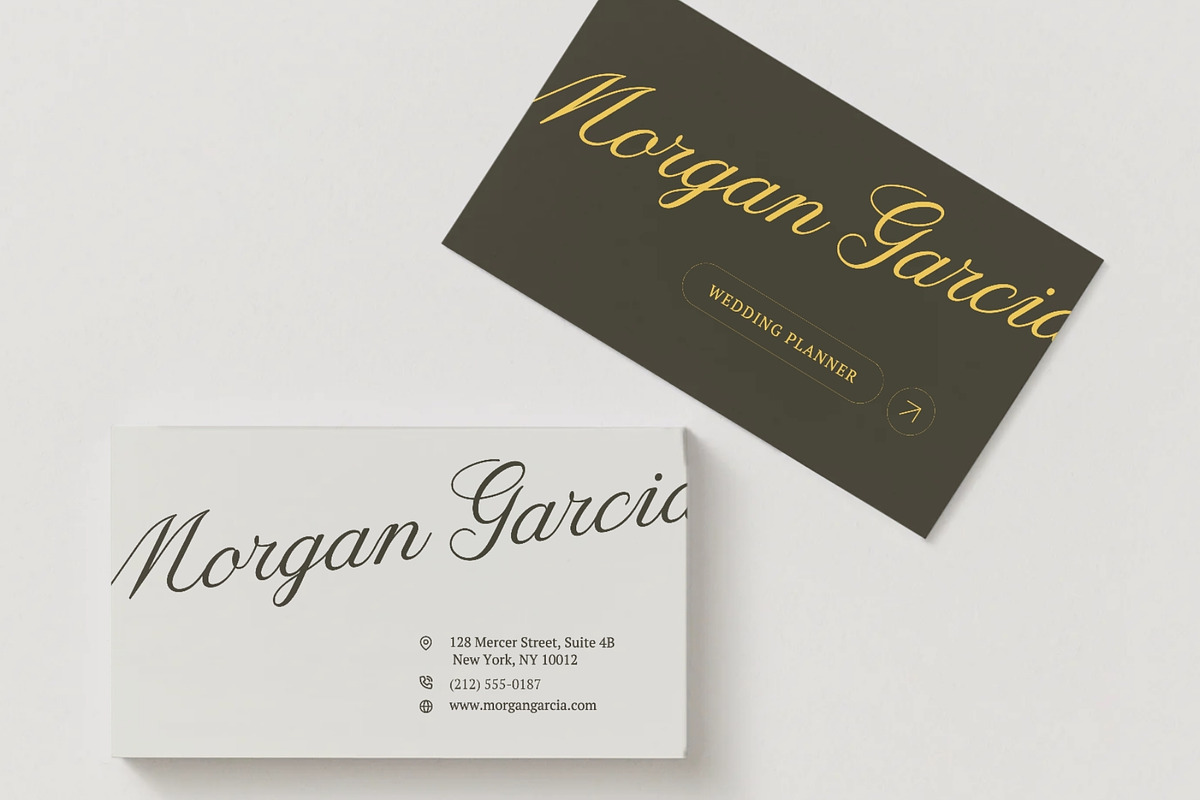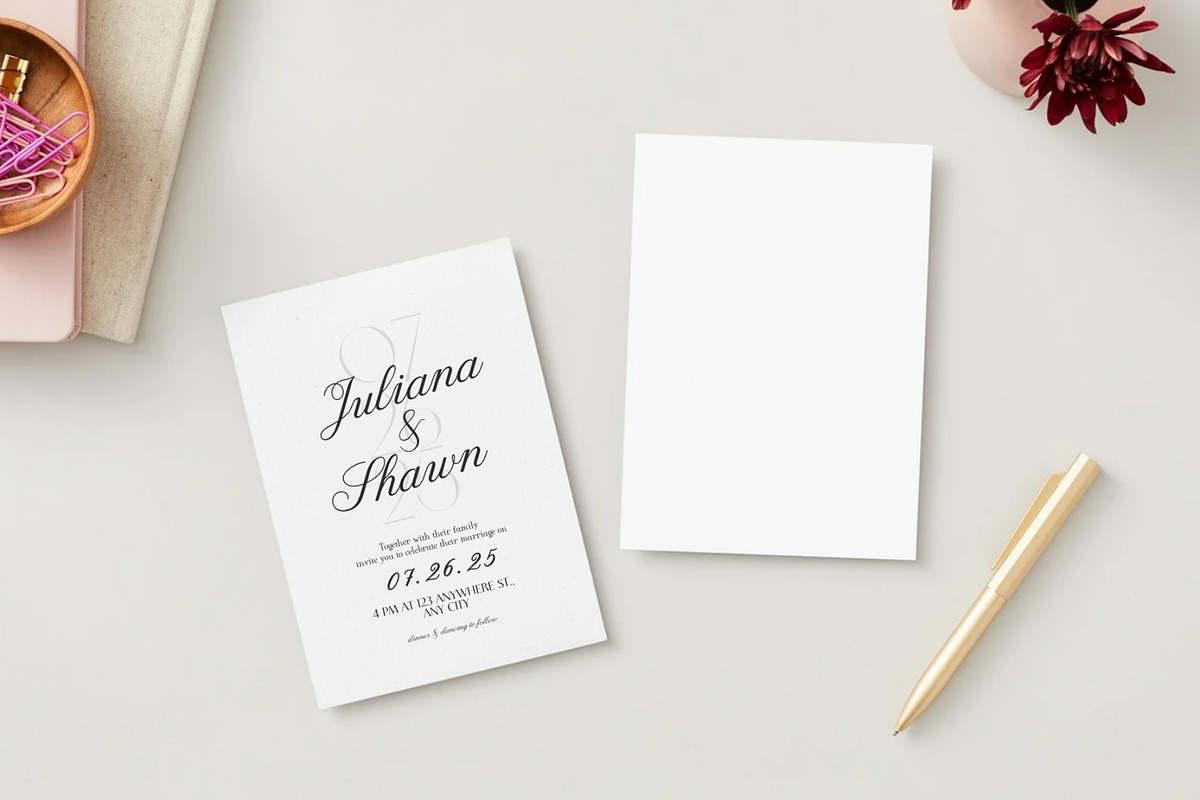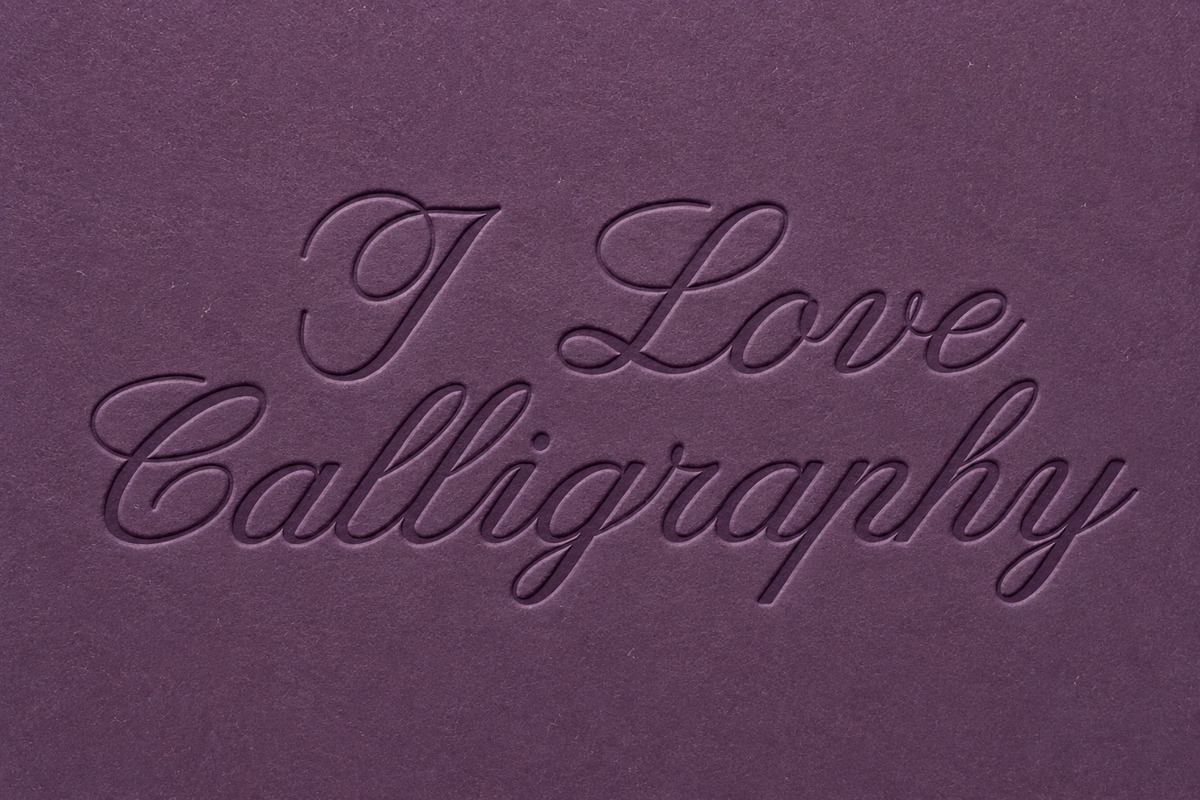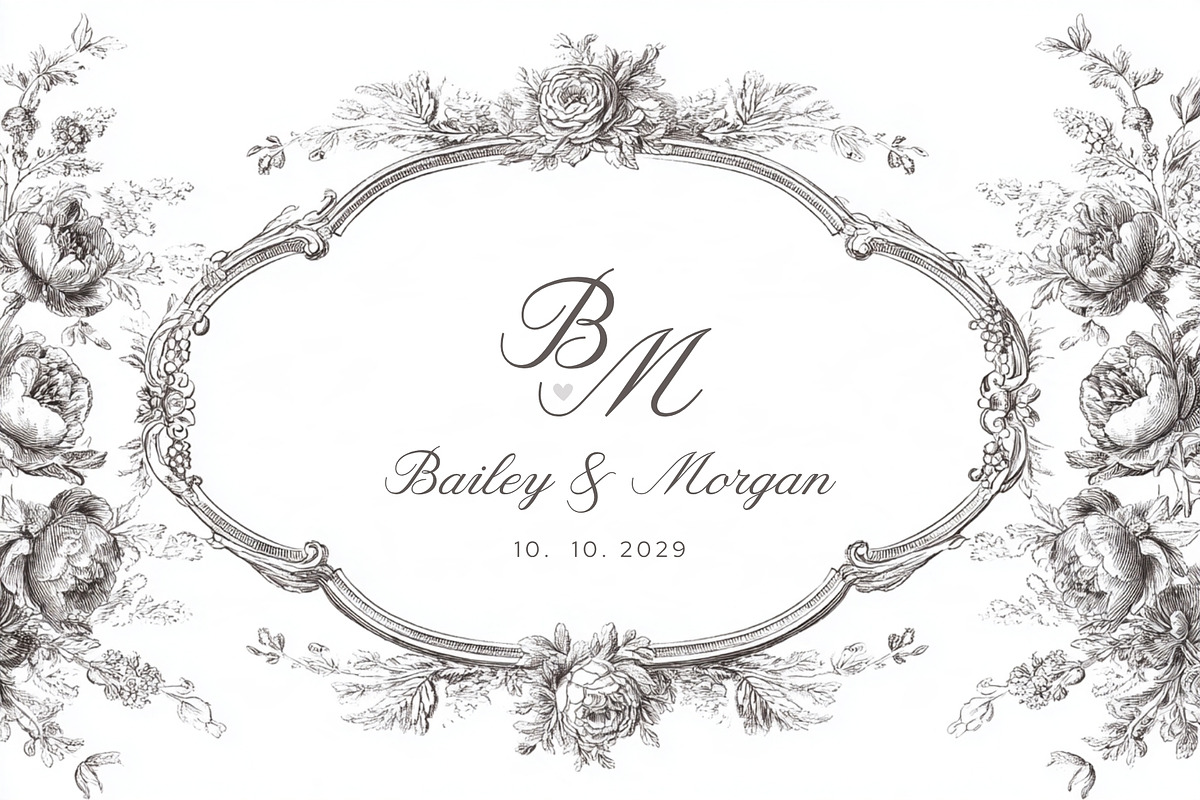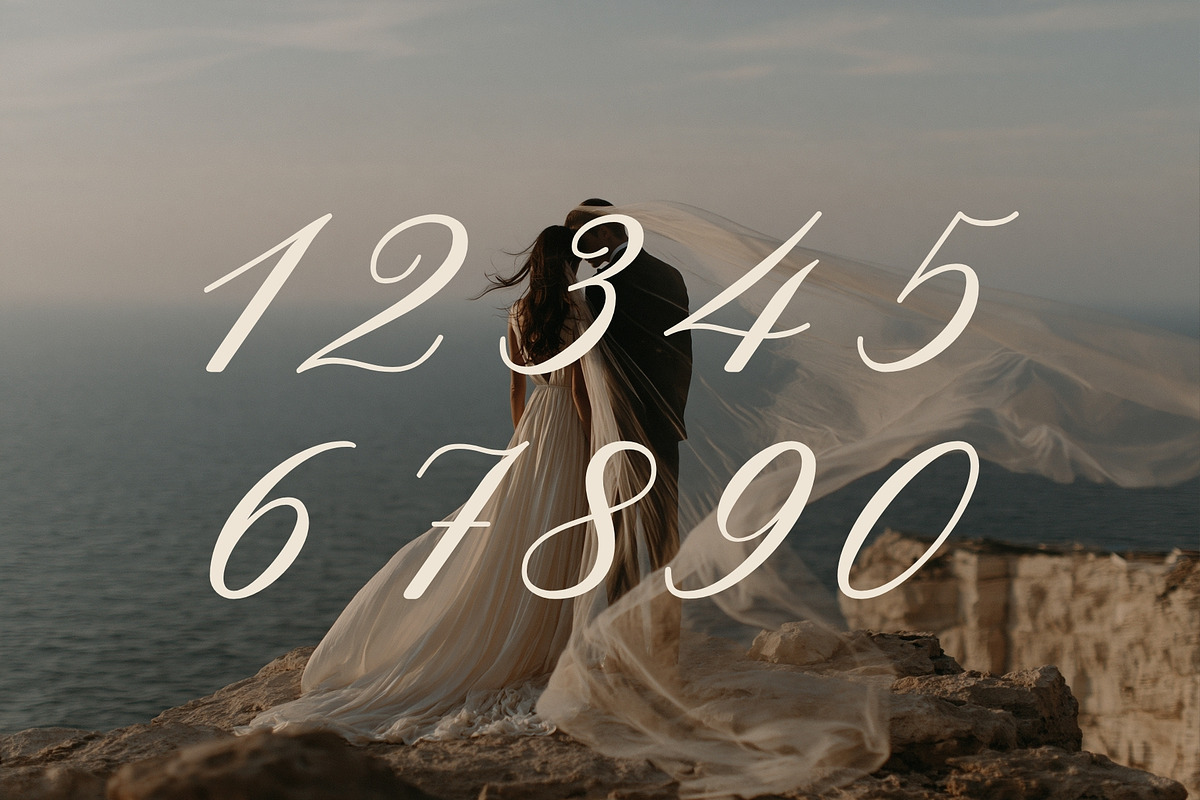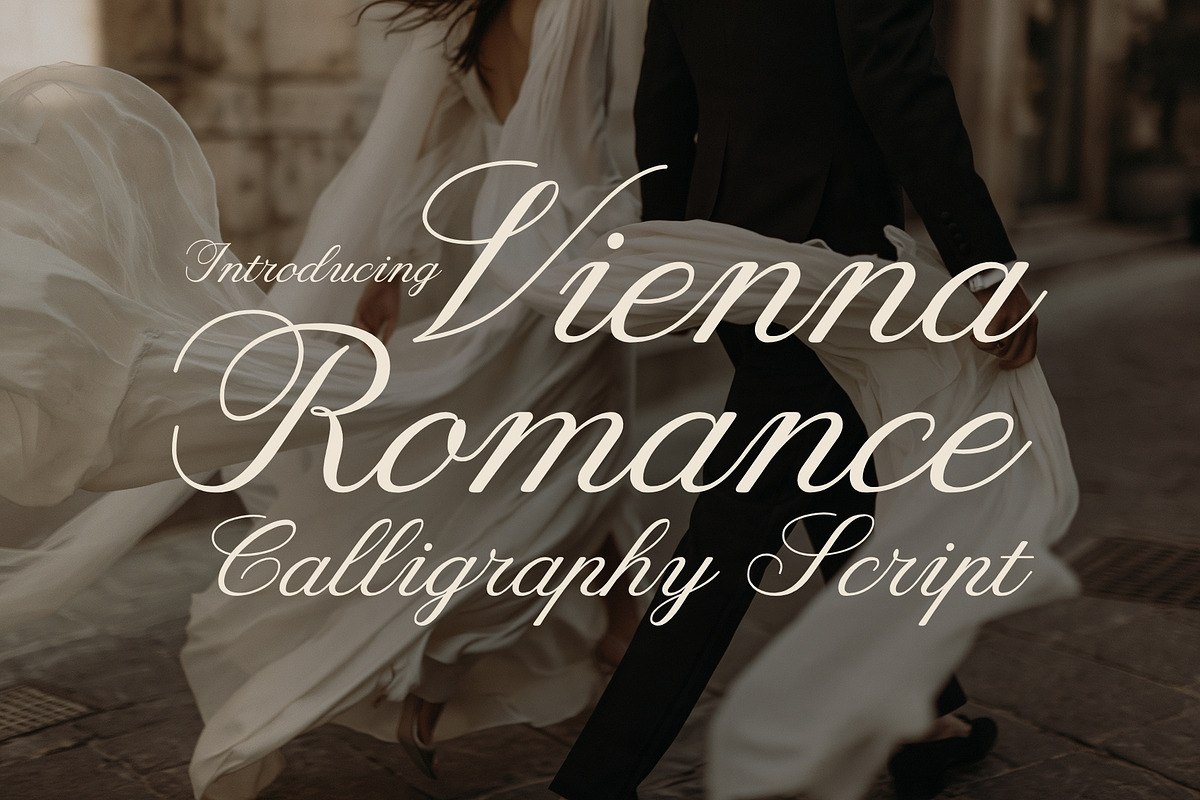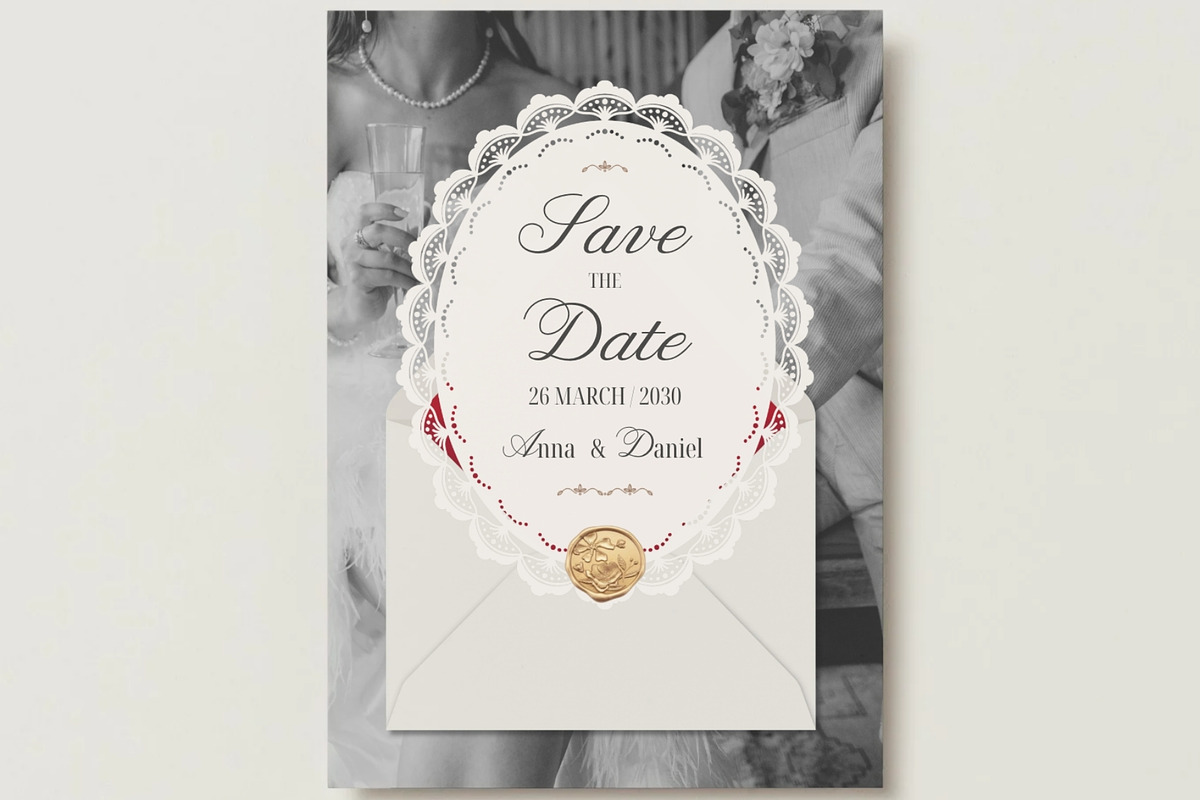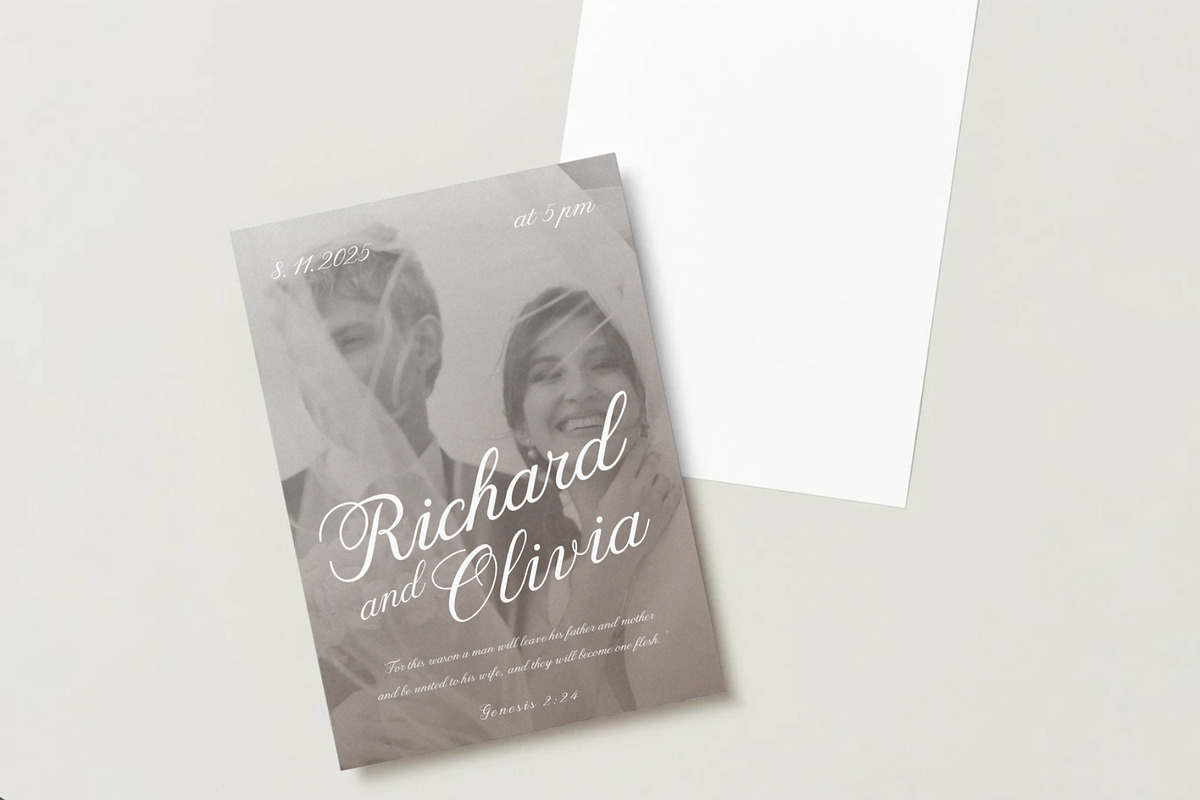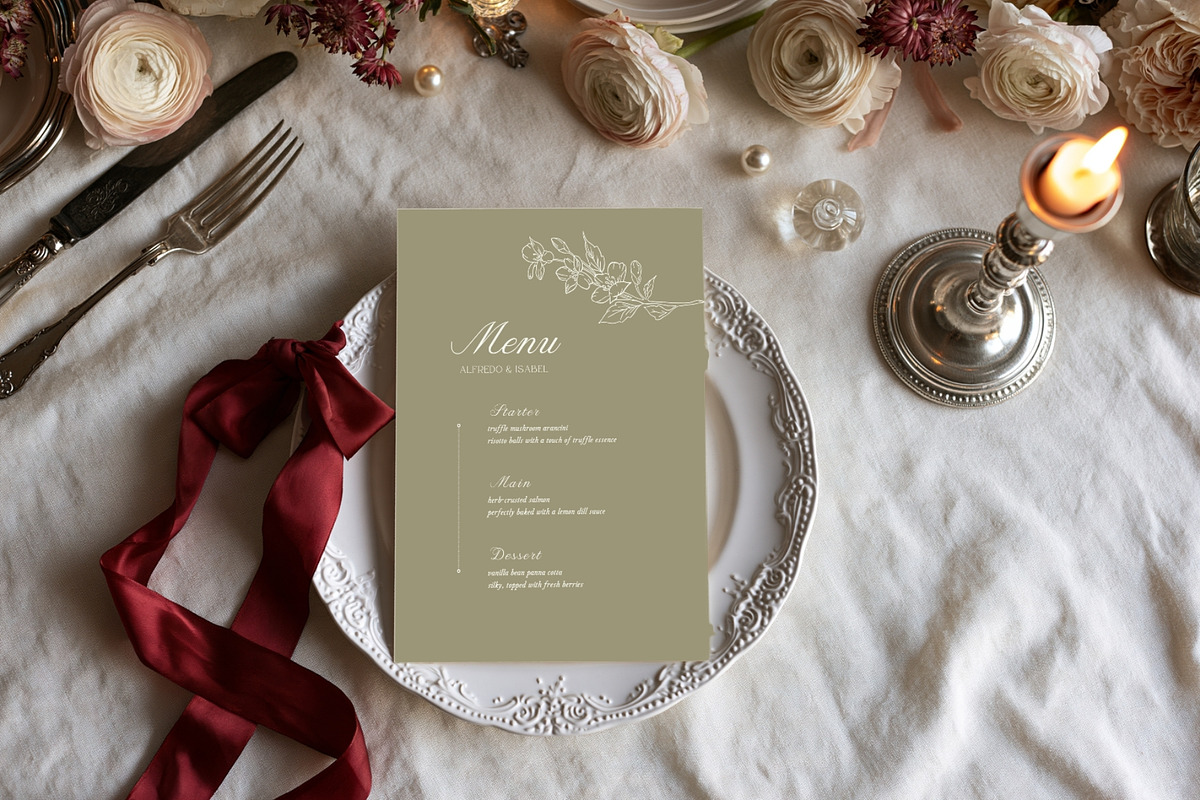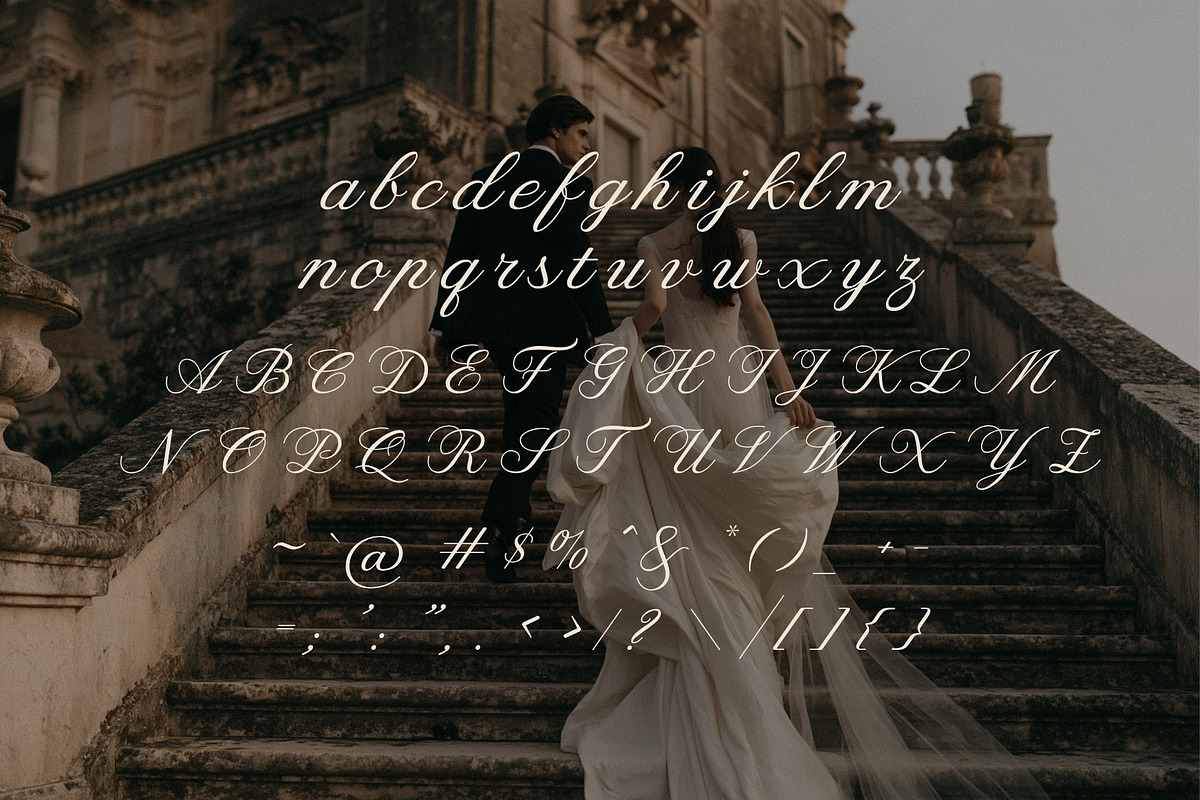
Vienna Romance - Calligraphy Script
Meet Vienna Romance, a breathtaking calligraphy script typeface created for love stories, elegant celebrations, and designs that deserve a truly timeless touch.
Inspired by the refined beauty of classic Copperplate calligraphy, Vienna Romance combines graceful, sweeping letterforms with the warmth and character of genuine hand-drawn lettering. Delicate hairlines, elegant curves, and beautifully balanced strokes give the font its sophisticated presence, while subtle irregularities preserve the natural charm of ink flowing across paper.
The result is a script that feels luxurious without becoming overly polished or impersonal. Vienna Romance carries the romance of traditional penmanship while offering the versatility of a modern typeface—making it especially beautiful for wedding invitations, save-the-dates, menus, place cards, vows, monograms, luxury logos, boutique branding, packaging, stationery, editorial design, and romantic social media graphics.
Its flowing forms are designed to turn names, headlines, and short phrases into elegant focal points. Pair Vienna Romance with a refined serif or minimalist sans serif to create sophisticated layouts that feel both classic and contemporary.
Whether you're designing an intimate wedding suite, an elegant fragrance label, a luxury fashion identity, or stationery meant to be treasured for years, Vienna Romance brings the unmistakable beauty of handwritten calligraphy to every word.
Graceful. Romantic. Timeless. Written with a human touch.